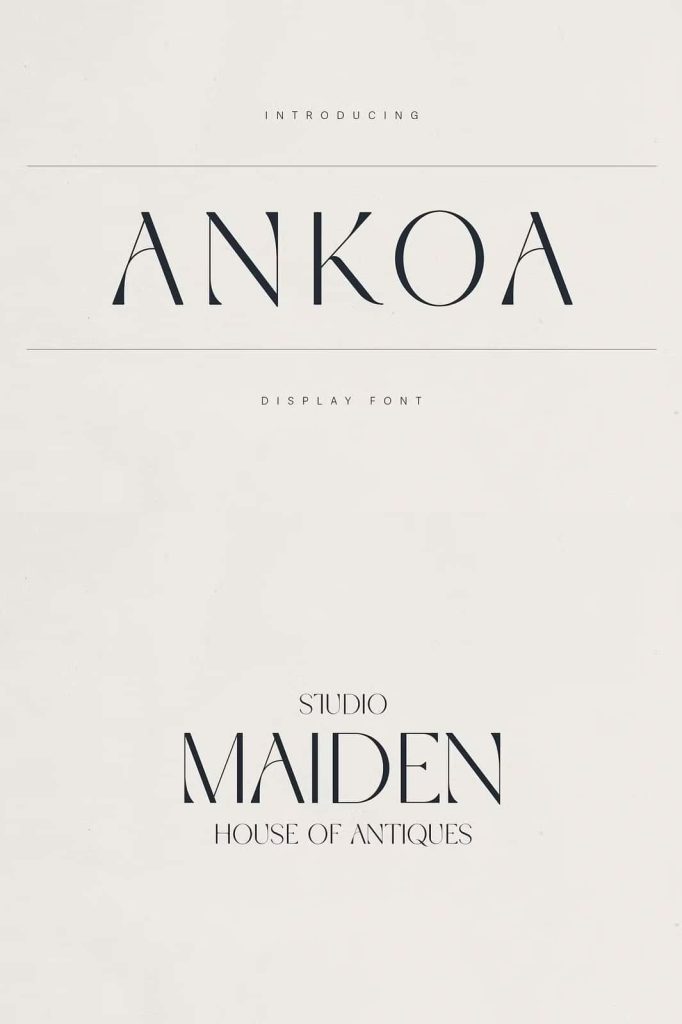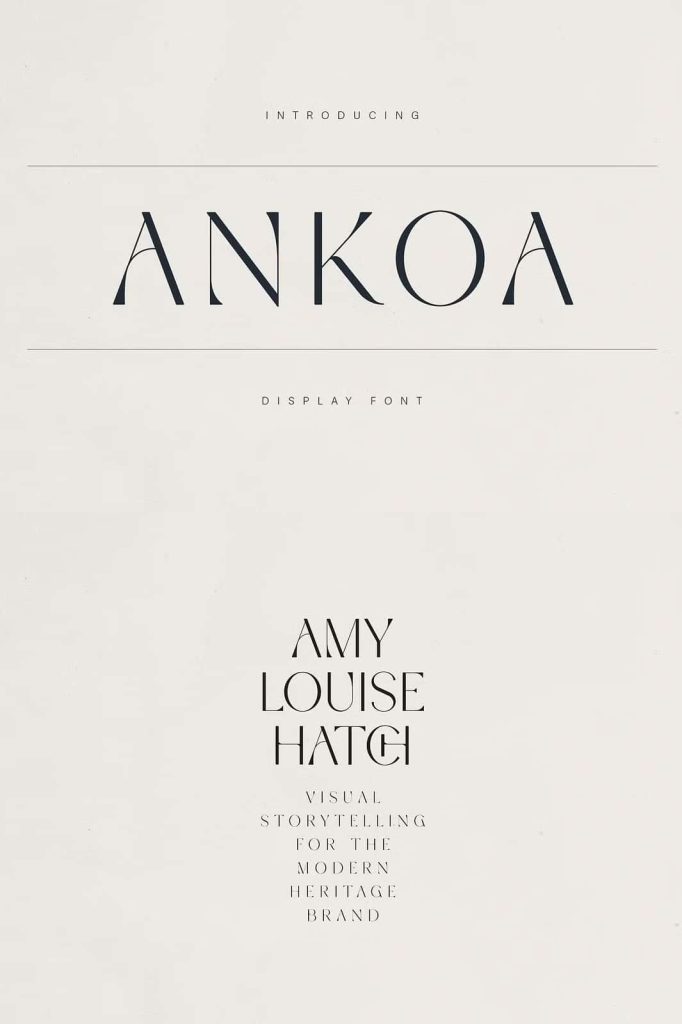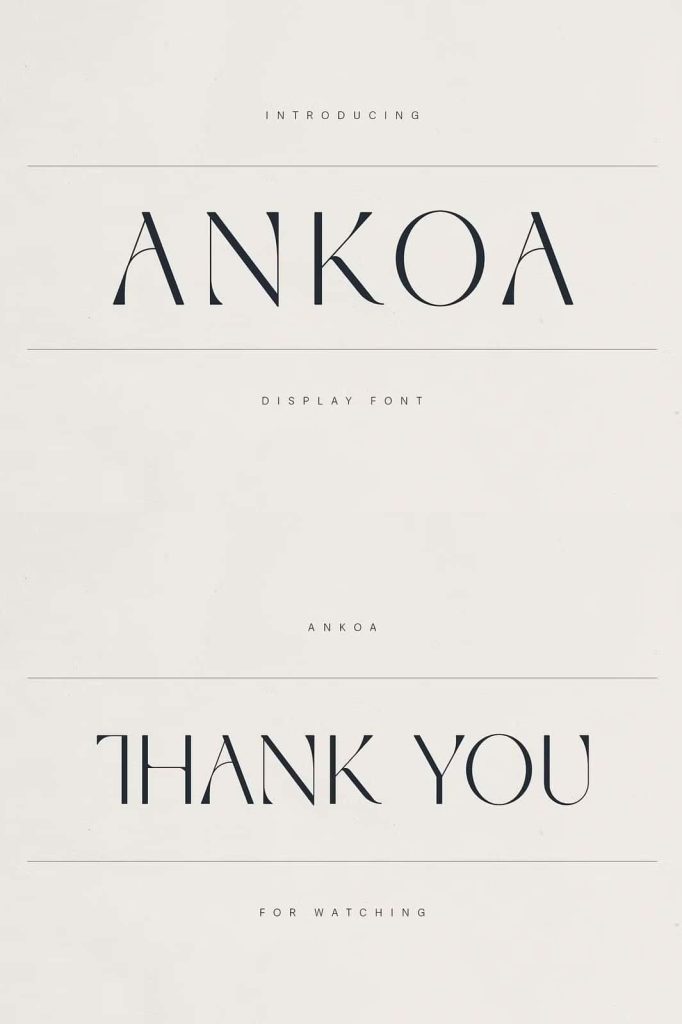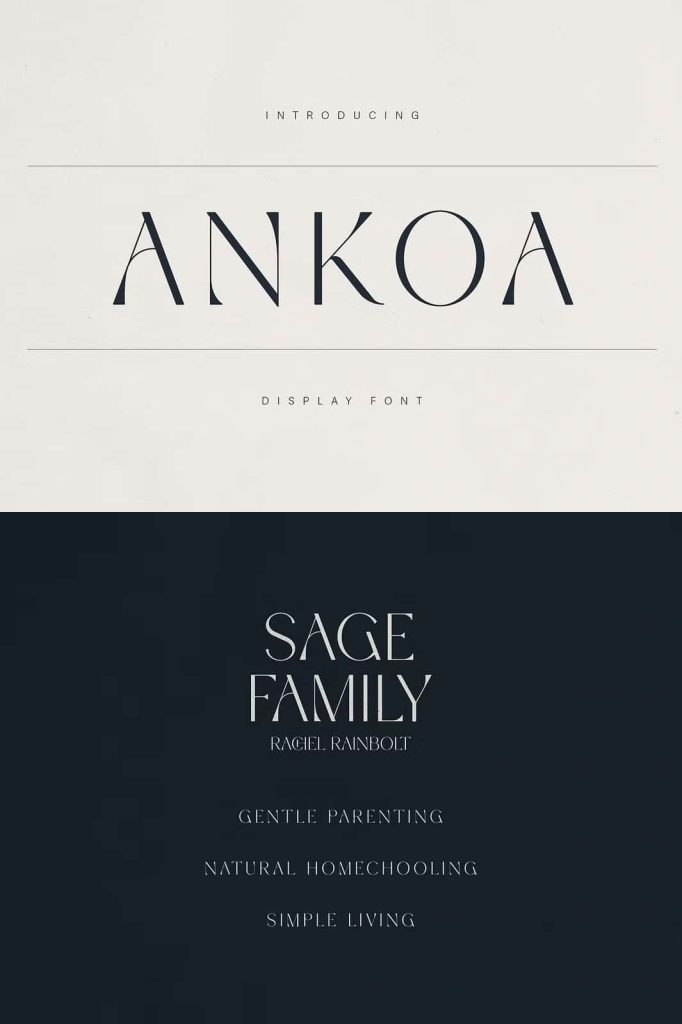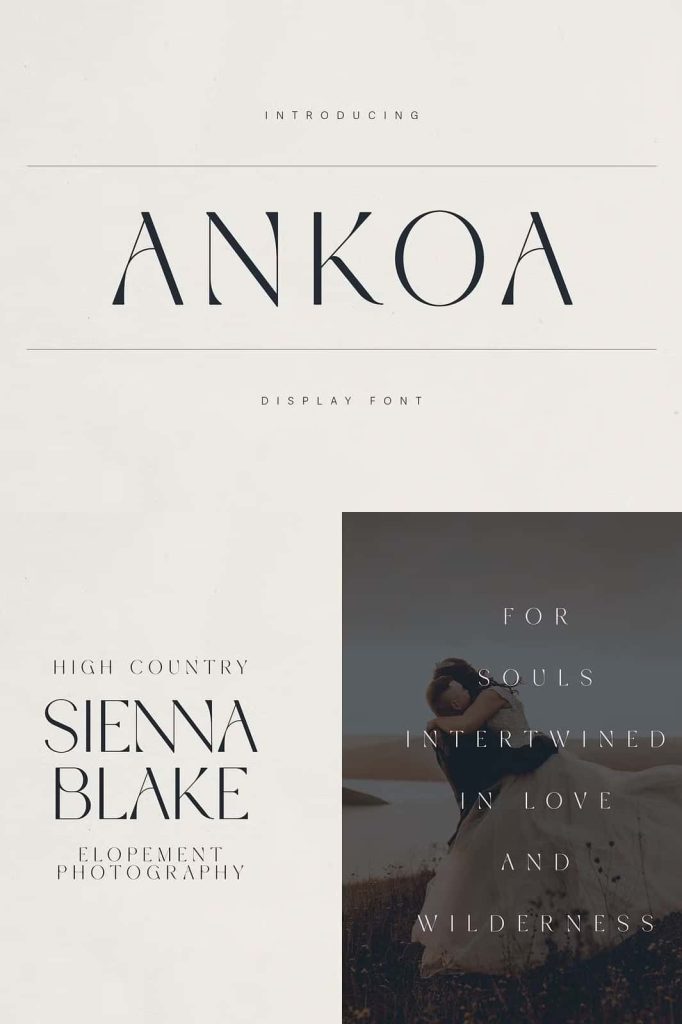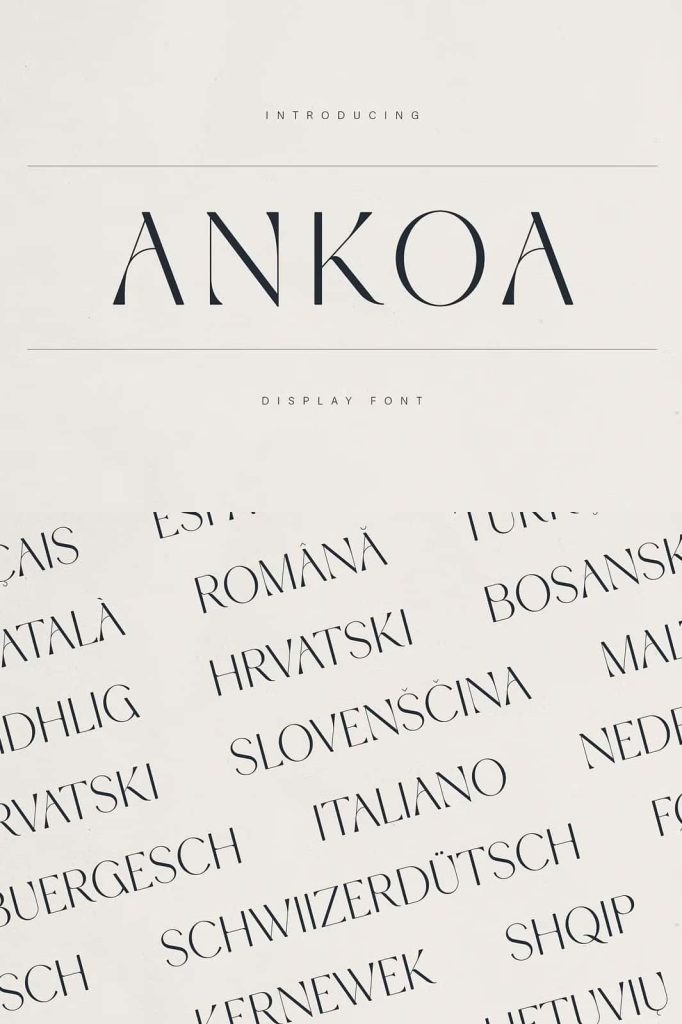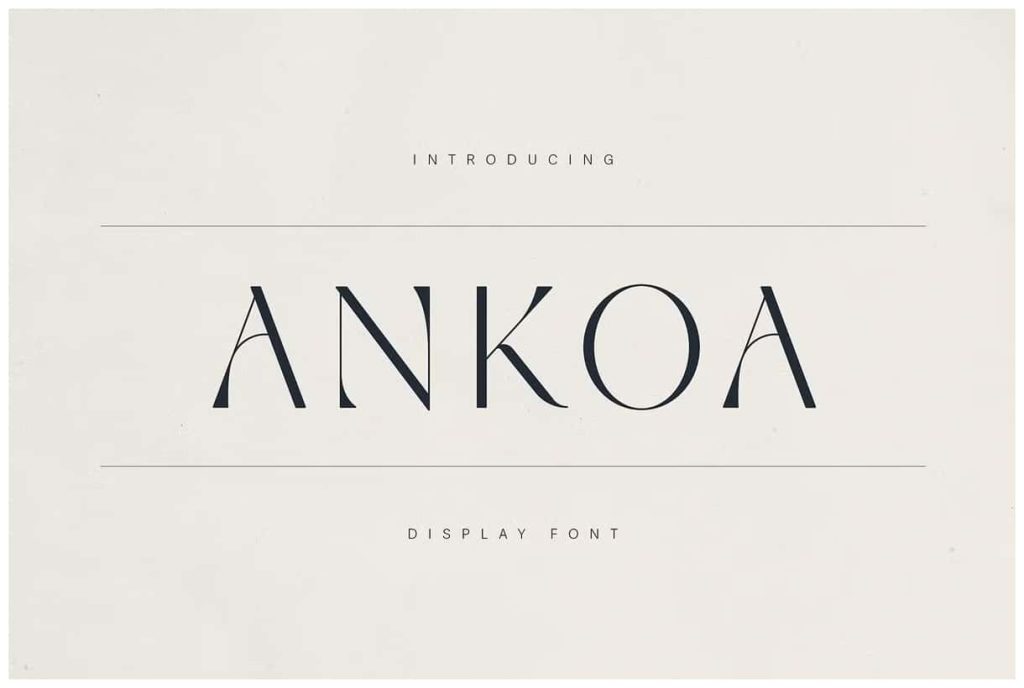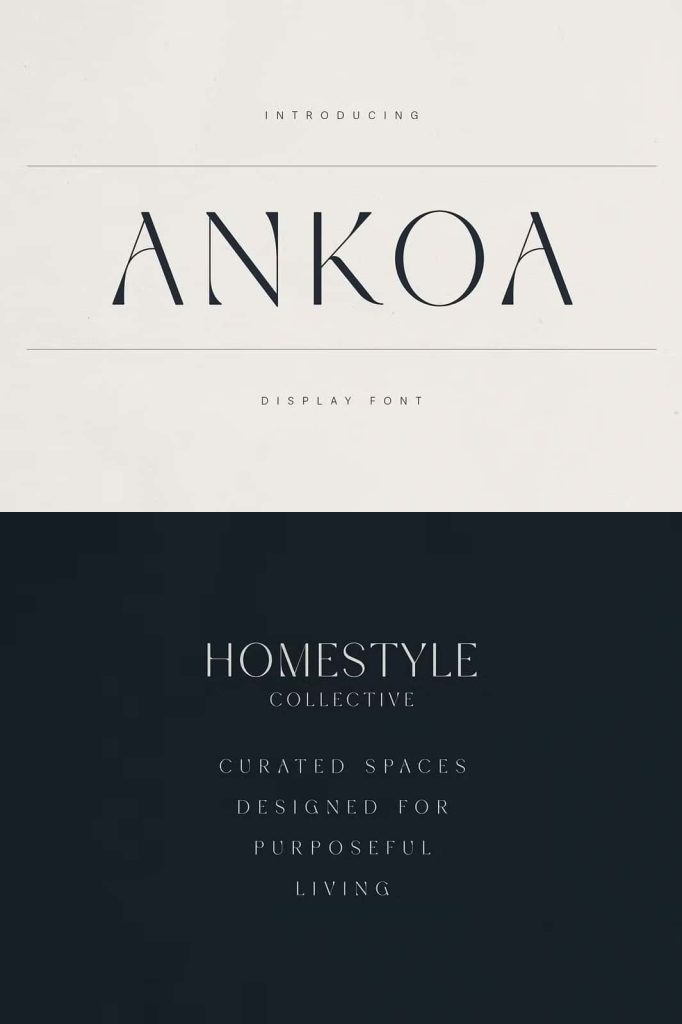
Ankoa is a contemporary display serif font that balances artistic flair with timeless sophistication. Defined by its elegant high-contrast strokes, unique curved terminals, and refined proportions, Ankoa captures the essence of modern luxury with a whisper of vintage romance.